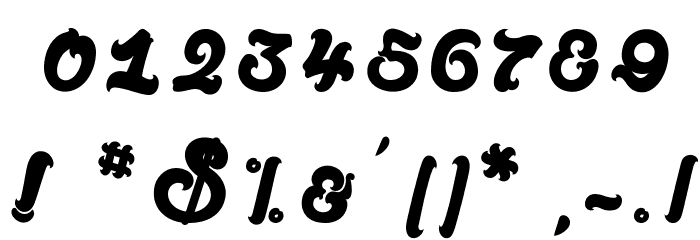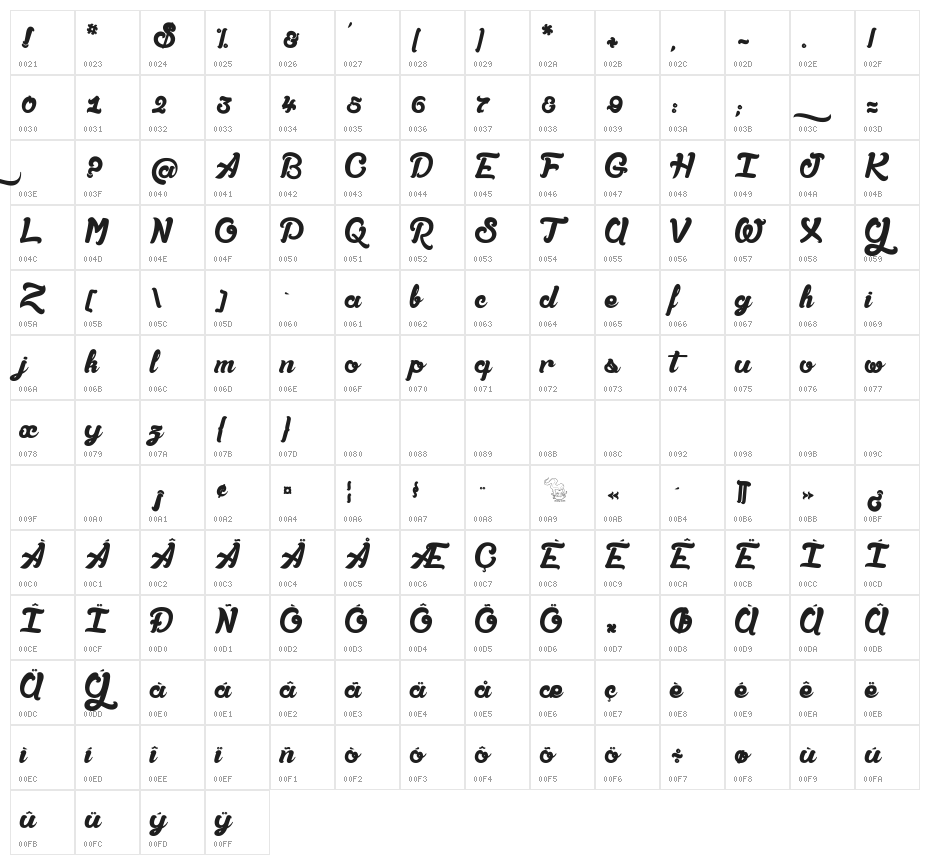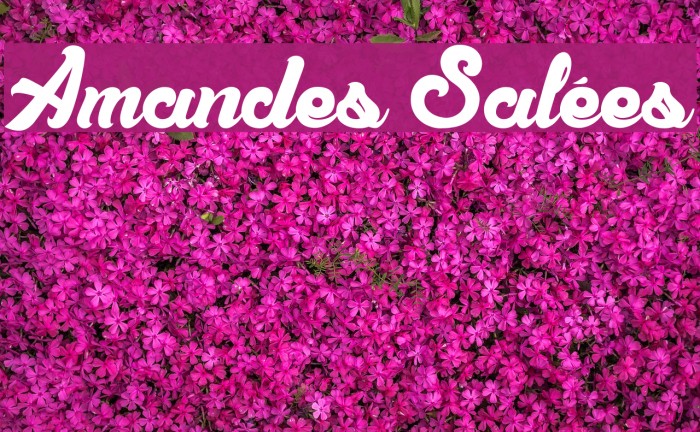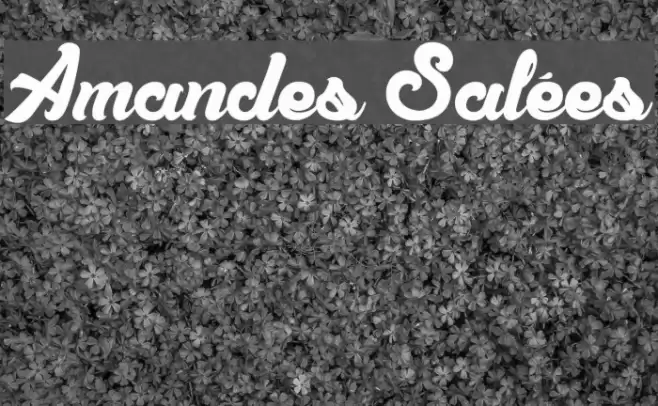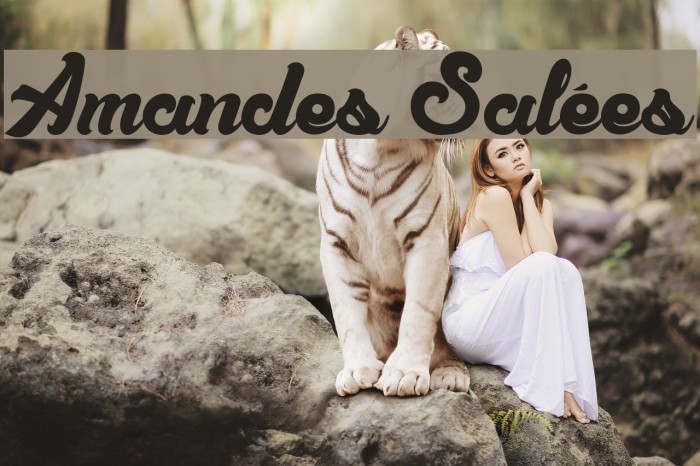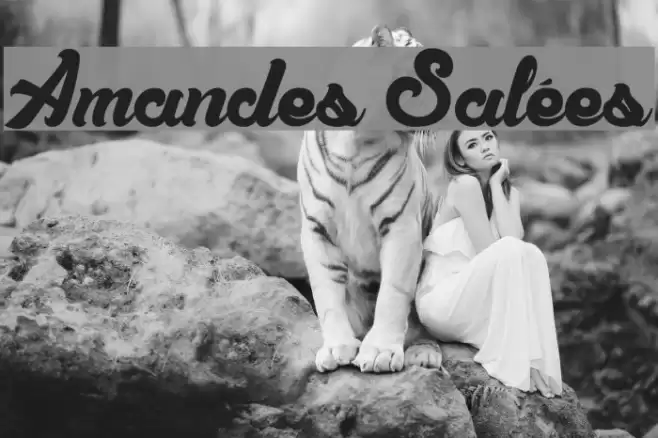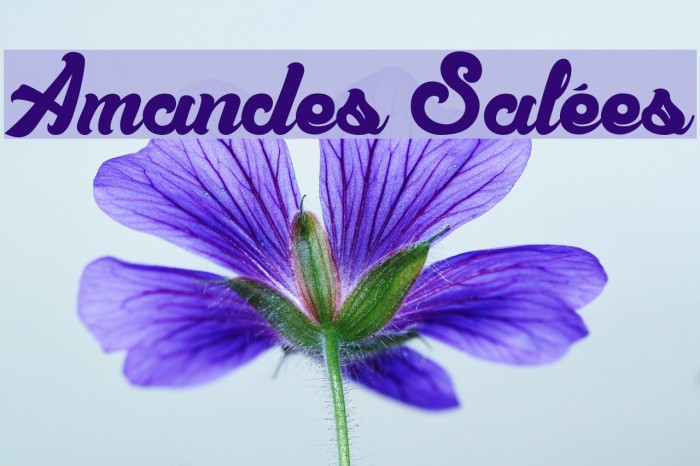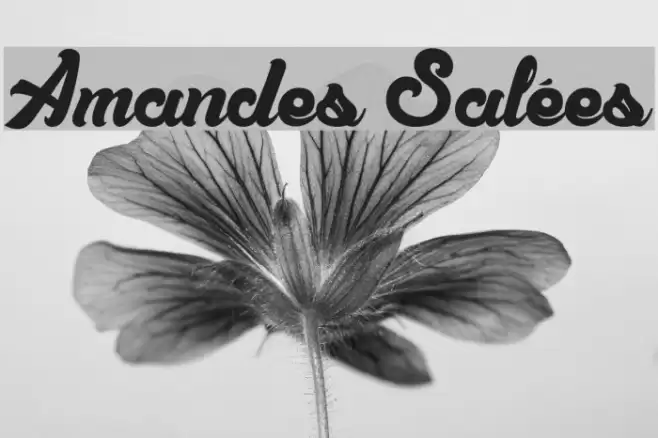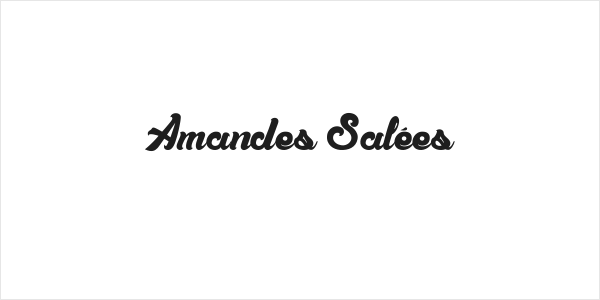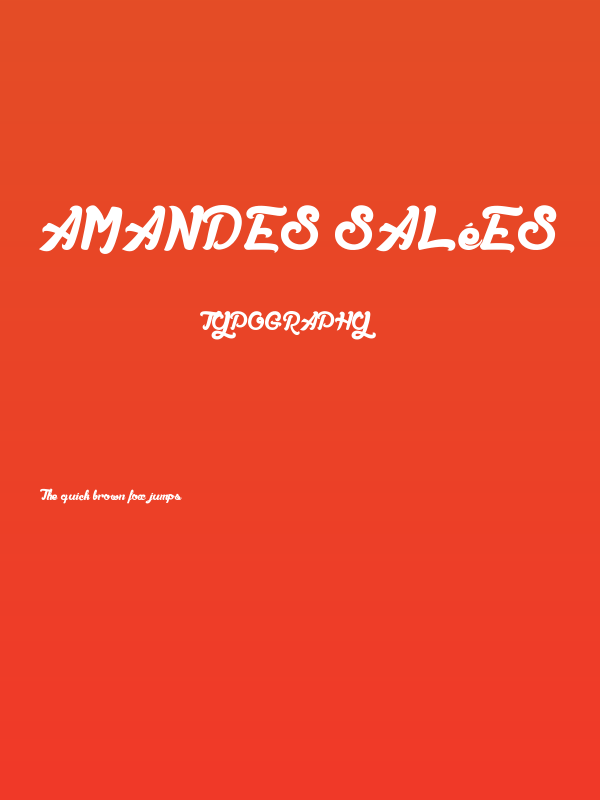
Amandes Salées Font
Amandes Salées Description
This font features a bold and dynamic script style with a strong presence. The characters are interconnected with smooth, flowing strokes that give it a sense of movement and elegance. The uppercase letters are slightly more ornate, while the lowercase letters maintain a consistent rhythm. The numerals and special characters are designed to match the overall aesthetic, with a playful yet sophisticated appearance. This font is well-suited for projects that require a touch of personality and flair.
| Proposed Projects | Ideal for branding, invitations, greeting cards, and creative headlines. |